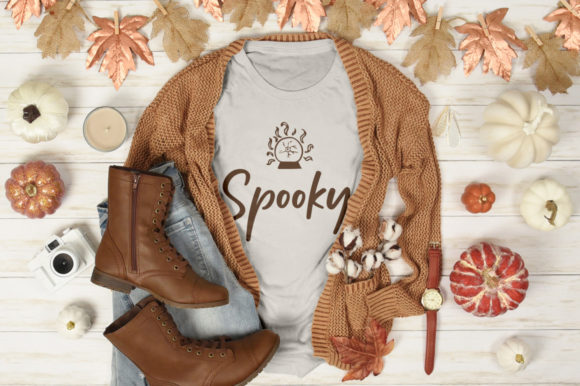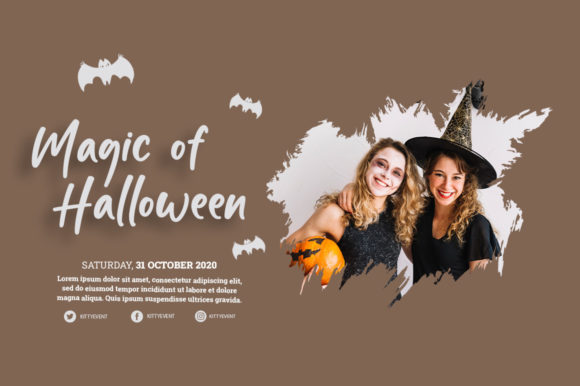
Cat Lady Font
db-ku.com - Script & Handwritten -- Cat Lady is a thin lettered and cute script font. Fall for its ravishing style and use it to create gorgeous wedding invitations, beautiful stationary art, eye-catching social media posts, and much more!